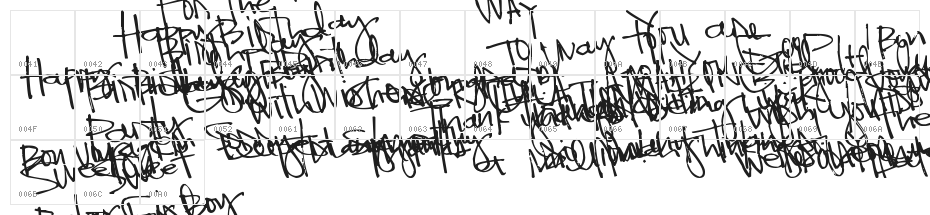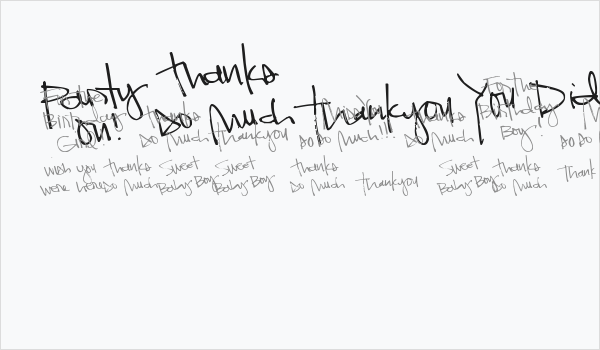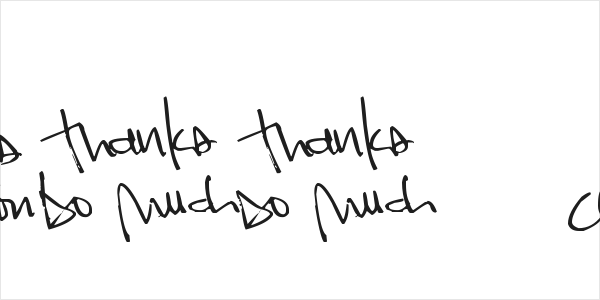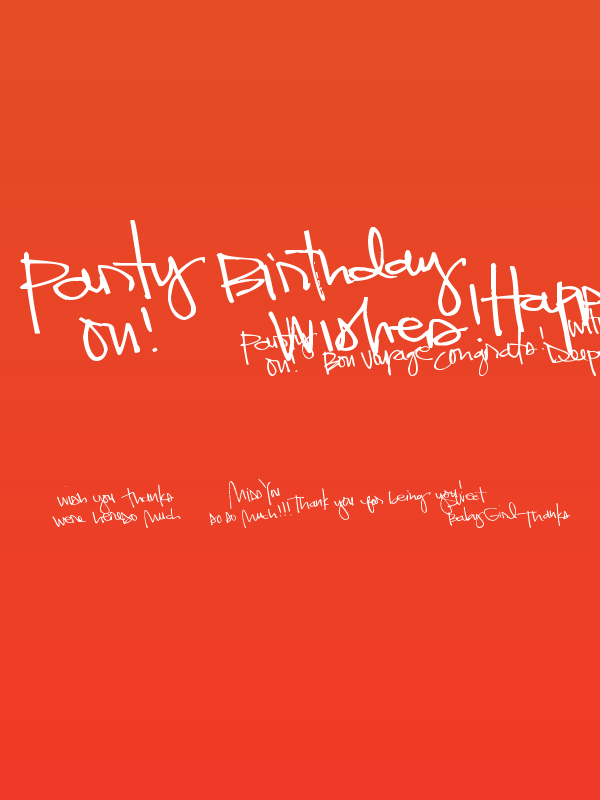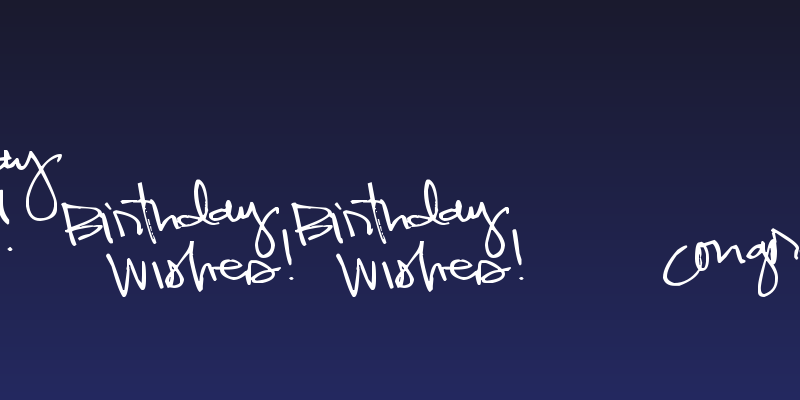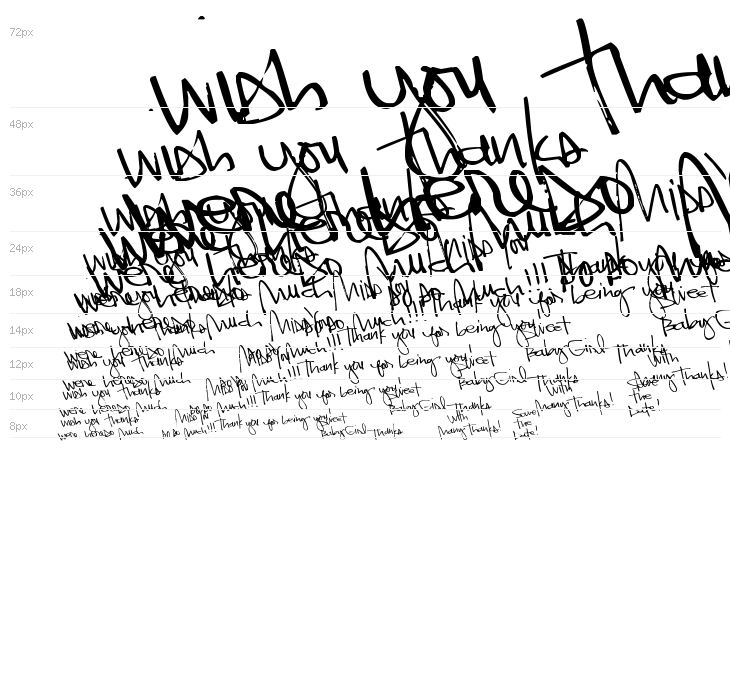
Pea Kadee's Greetings Font
Pea Kadee's Greetings Description
This font features a playful and casual handwritten style, characterized by its loose and flowing letterforms. The strokes are uneven, giving it a natural and personal touch, reminiscent of a quick note or a friendly greeting card. The letters vary in size and slant, adding to its informal and spontaneous appearance. This font is ideal for conveying warmth and personality, making it suitable for personal messages, invitations, and creative projects. Its unique style captures attention and adds a touch of whimsy to any text.
| Use Case | Greeting cards, Personal notes, Invitations |
| Proposed Projects | Ideal for greeting cards, personal notes, invitations, and creative projects. |